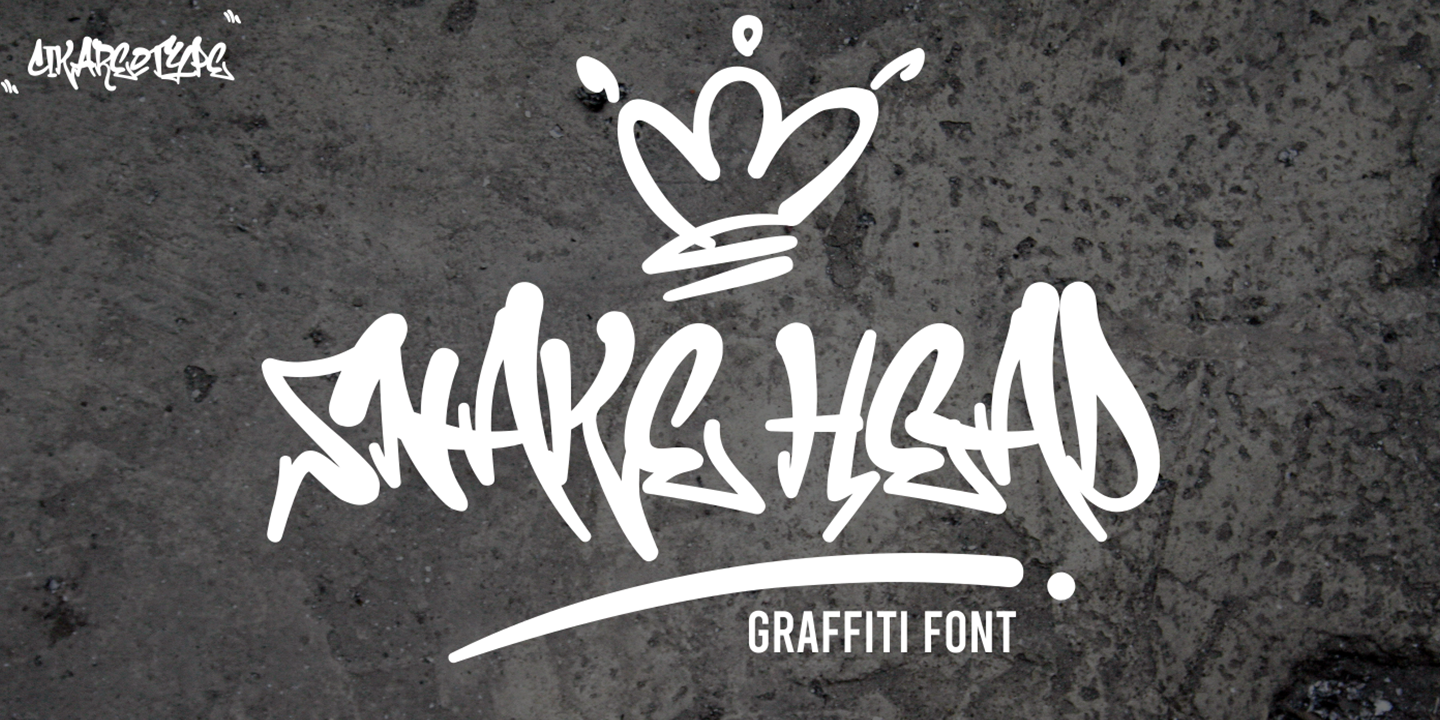
Snakehead Graffiti Font is ideal for urban street art projects, hip-hop album covers, extreme sports branding, underground music promotions, edgy fashion labels, graffiti-style logos, skateboard graphics, rebellious youth campaigns, street culture merchandise, underground event posters, urban lifestyle brands, and aggressive advertising designs. This fierce typeface excels in applications requiring raw street energy and rebellious attitude, making it perfect for music labels, extreme sports companies, street fashion brands, and businesses targeting urban culture enthusiasts and alternative lifestyle audiences.
What makes Snakehead Graffiti Font exciting is its aggressive ability to convey raw street power and rebellious energy through intense typography. The font features bold letterforms with sharp angles and fierce character variations that evoke the dangerous beauty of urban wildlife and street art rebellion. Its powerful construction and edgy design create an atmosphere of underground culture and street authenticity, while maintaining excellent readability across all applications. The font's distinctive personality embodies the essence of street rebellion and urban survival, making it perfect for brands seeking to establish fierce, street-credible identities that resonate with alternative culture audiences.
The Snakehead Graffiti Font family typically includes multiple weights such as Regular, Bold, Extra Bold, and Condensed variations, along with complementary outline and shadow styles. Many collections also feature aggressive alternates, street-inspired ligatures, and rebellious decorative elements that enhance the font's fierce character. Some comprehensive packages include urban symbols, graffiti borders, and street culture glyphs that provide complete design flexibility for underground and street art projects promoting rebellious expression and urban authenticity.
Snakehead Graffiti Font Free Download represents the perfect fusion of street aesthetics and typographic excellence. This remarkable typeface brings instant edge and urban appeal to any project, making it particularly valuable for music brands, street fashion labels, and underground companies seeking to establish authentic, rebellious brand identities. The font's versatile nature allows it to perform powerfully in both large street displays and detailed urban communications.
Designers value Snakehead Graffiti Font for its ability to instantly convey street credibility, rebellious spirit, and urban authenticity that connects with alternative culture audiences seeking genuine underground experiences. The font's robust construction ensures excellent performance across various media and applications, while its edgy appeal adds immediate street authenticity to any design project. The comprehensive character set includes standard Latin characters, numerals, punctuation marks, and special symbols, making it suitable for urban communications, street publications, and diverse underground applications.
This exceptional typeface successfully captures the essence of street rebellion and urban survival while offering modern functionality, providing designers with an authentic tool for creating memorable and impactful communications that resonate with audiences seeking underground culture, street authenticity, and rebellious self-expression.